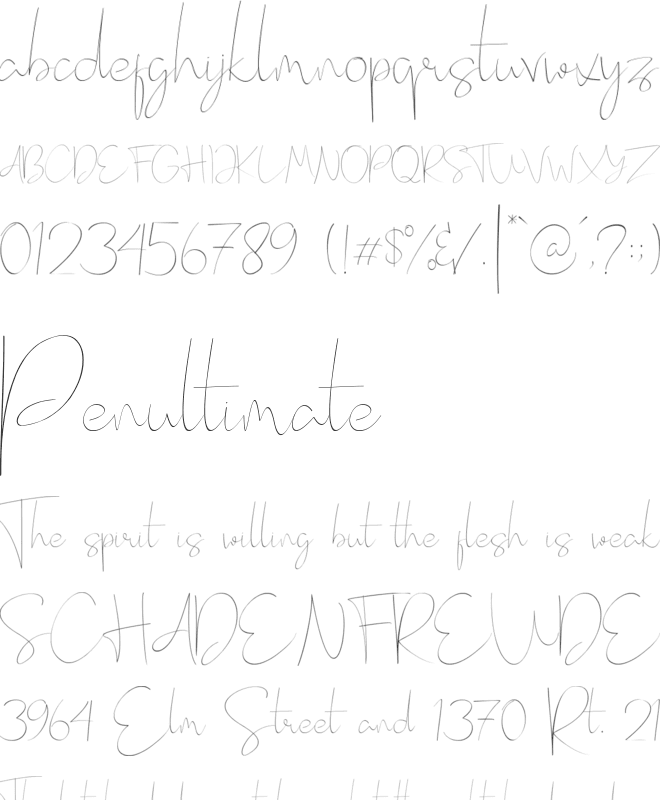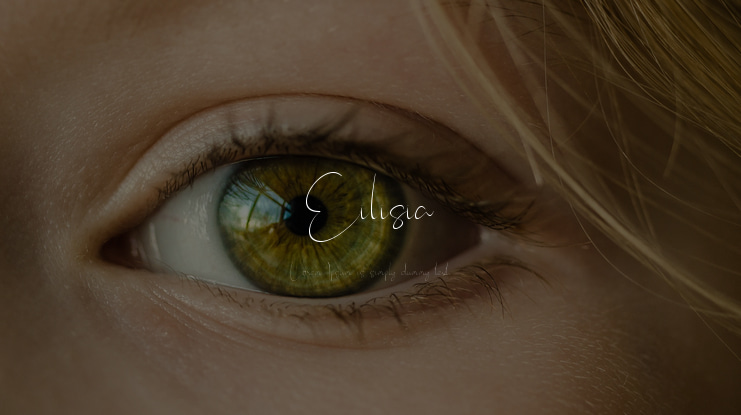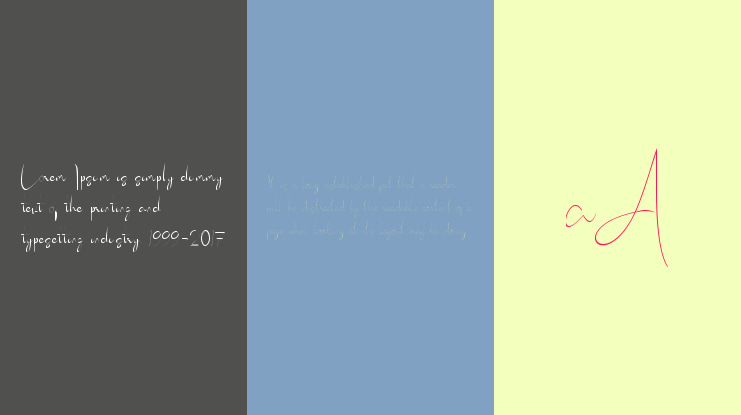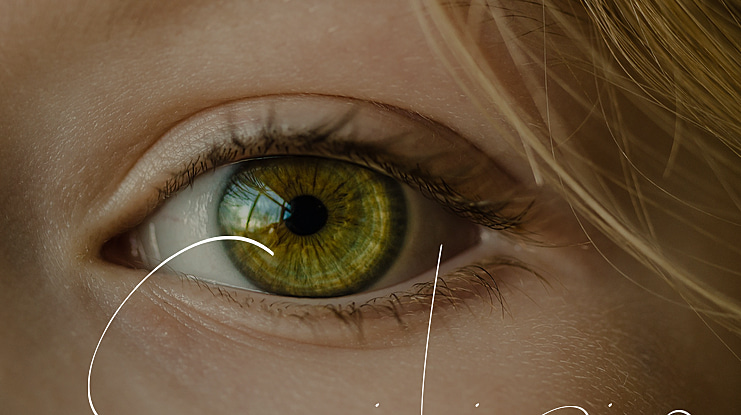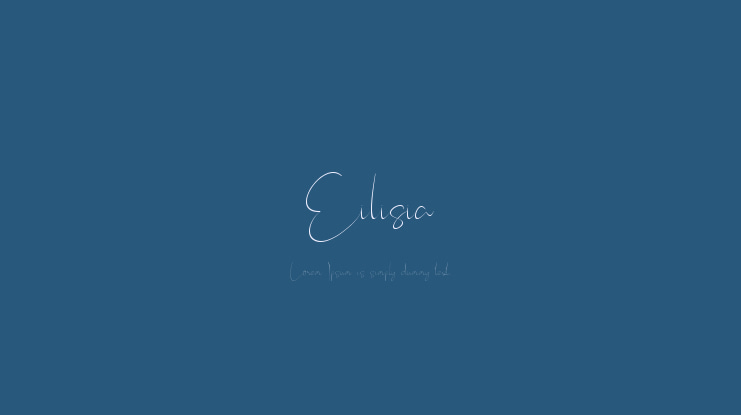
Eilisia Font
Hi How are you guys? I Think You're good. First introducing my fonts it's called Eilisia. Eilisia is a Modern Handwritten font, it's usable invitation wedding, Branding, Business card, etc.